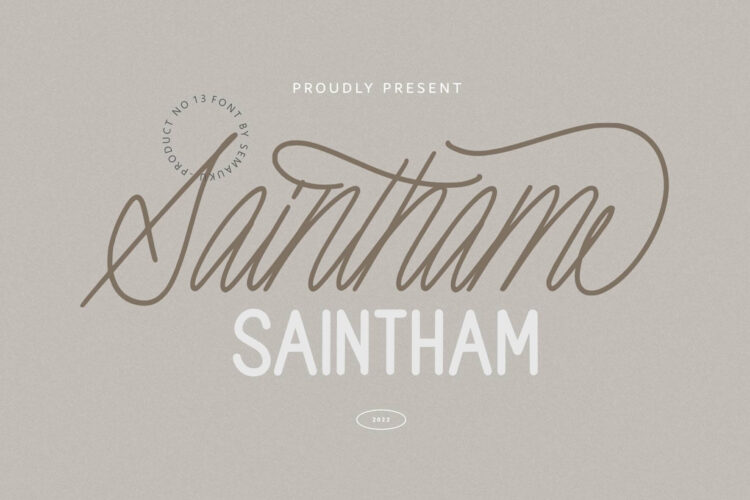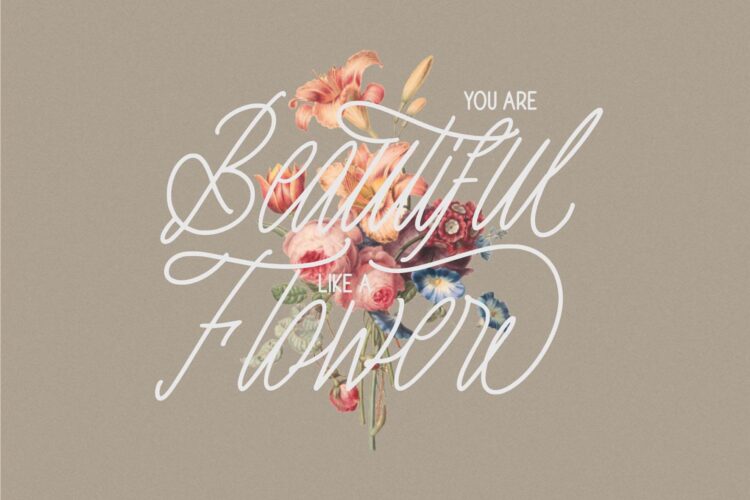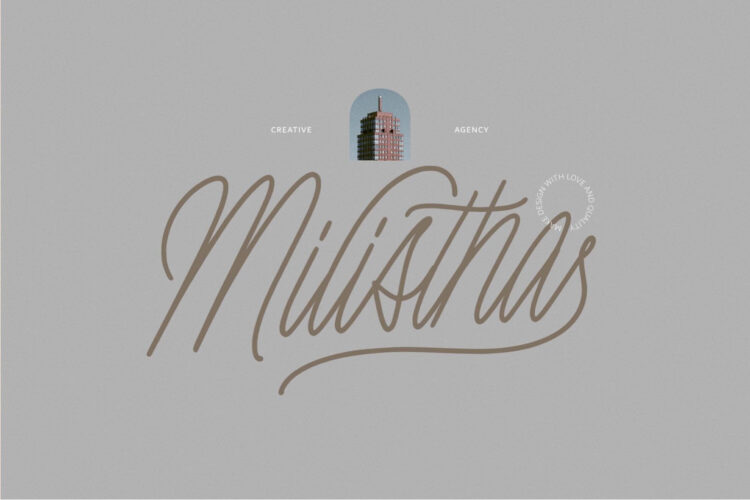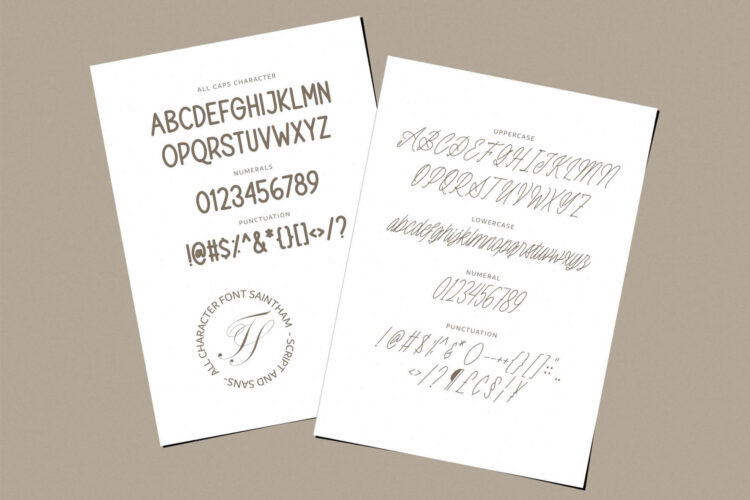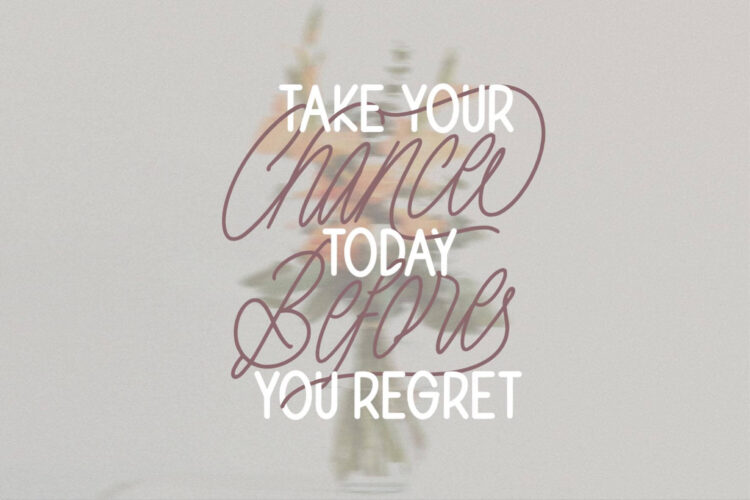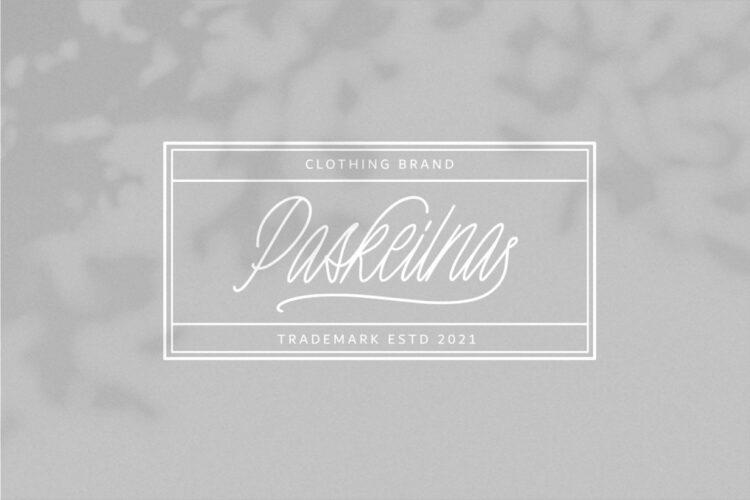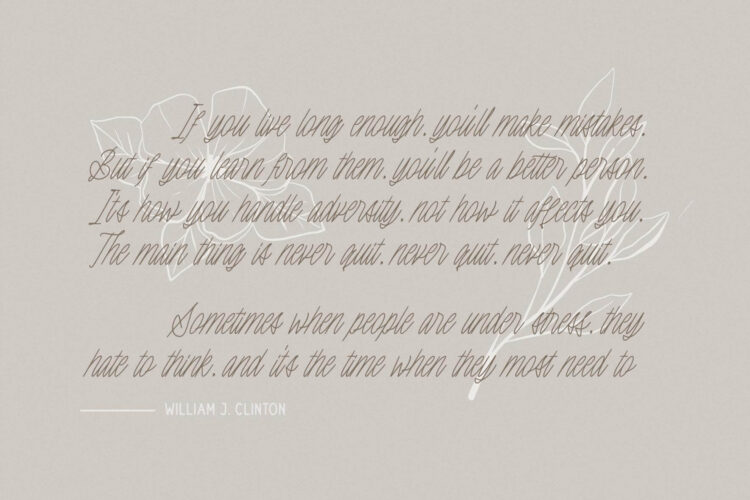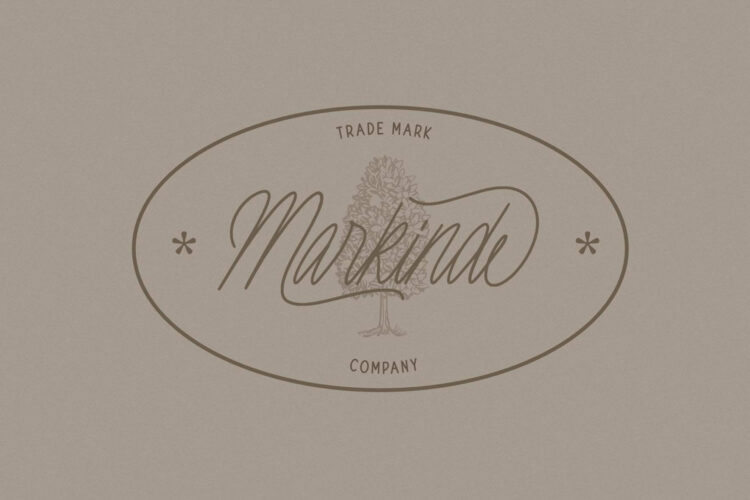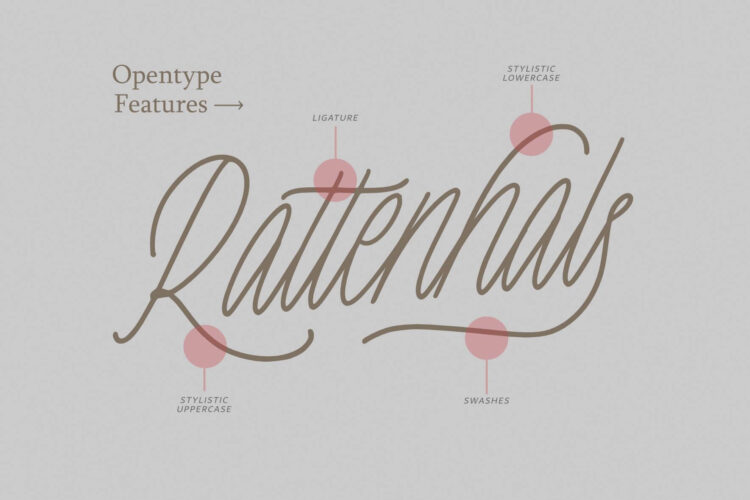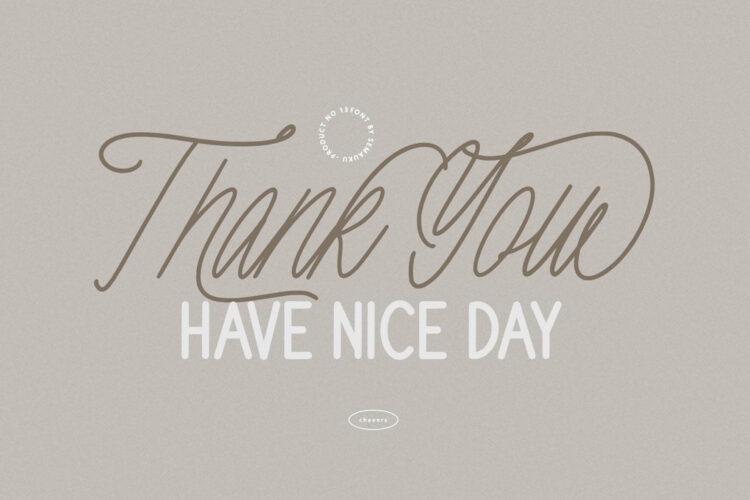
Saintham
Saintham Sans
Saintham is a duo font, monoline script font that looks classy and unique and sans serif that looks cool. This font blend is perfect for your design, it can be applied to various media.
Features:
– Uppercase and Lowercase Saintham Script
– Ligature Saintham Script
– Stylistic Alternate Saintham Script
– All Caps Saintham Sans
– Numeral
– Punctuation
– Multilingual Support